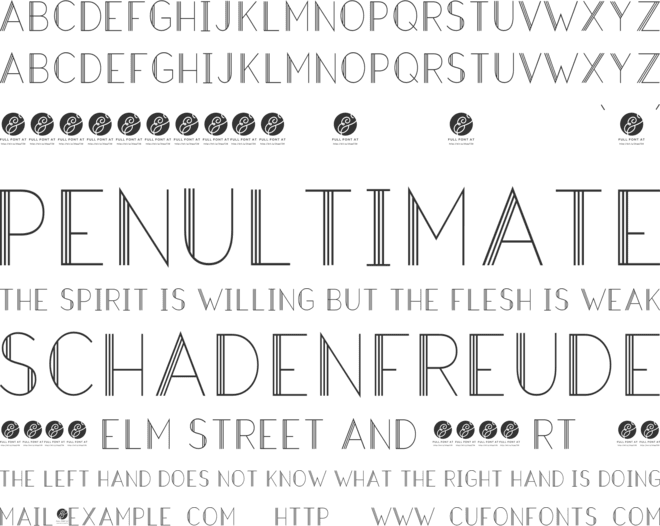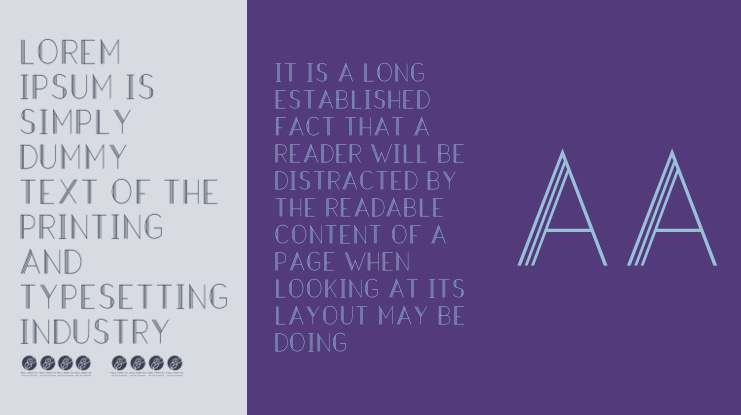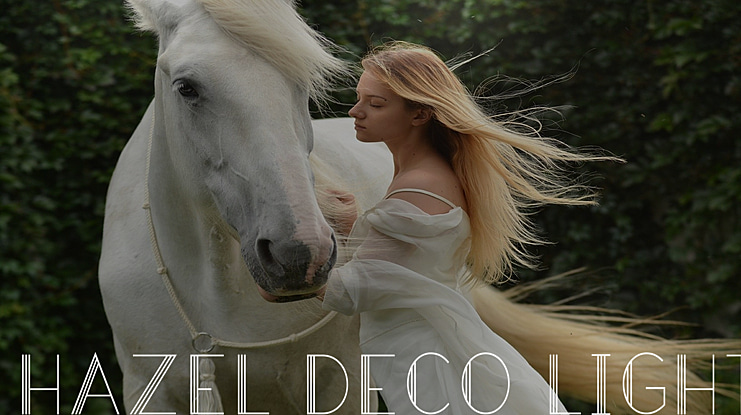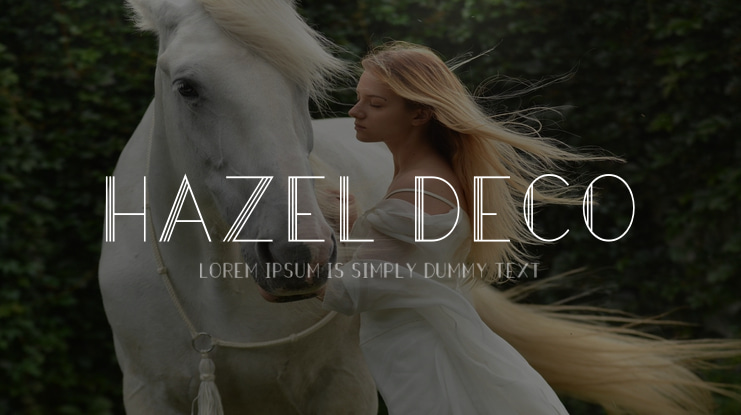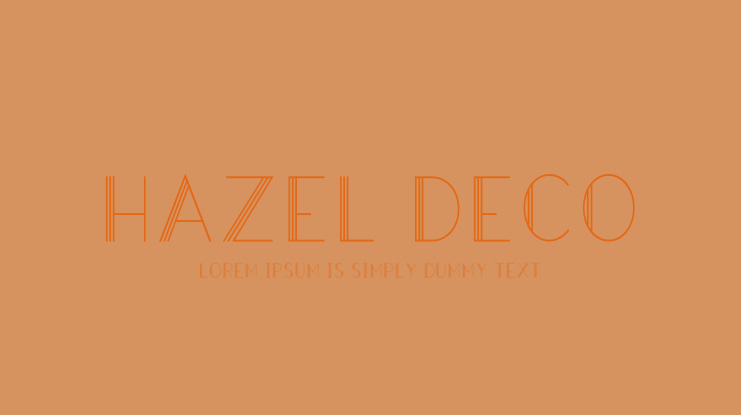
Hazel Deco Font
Meet Hazel Deco Light, an elegant Art Deco typeface in all caps.
Hazel Deco is suitable for wedding invitations, branding, stationery, blog design, custom art, custom stamps, custom embossers, or any design purpose. You can use it for your personal use, or for a commercial project.